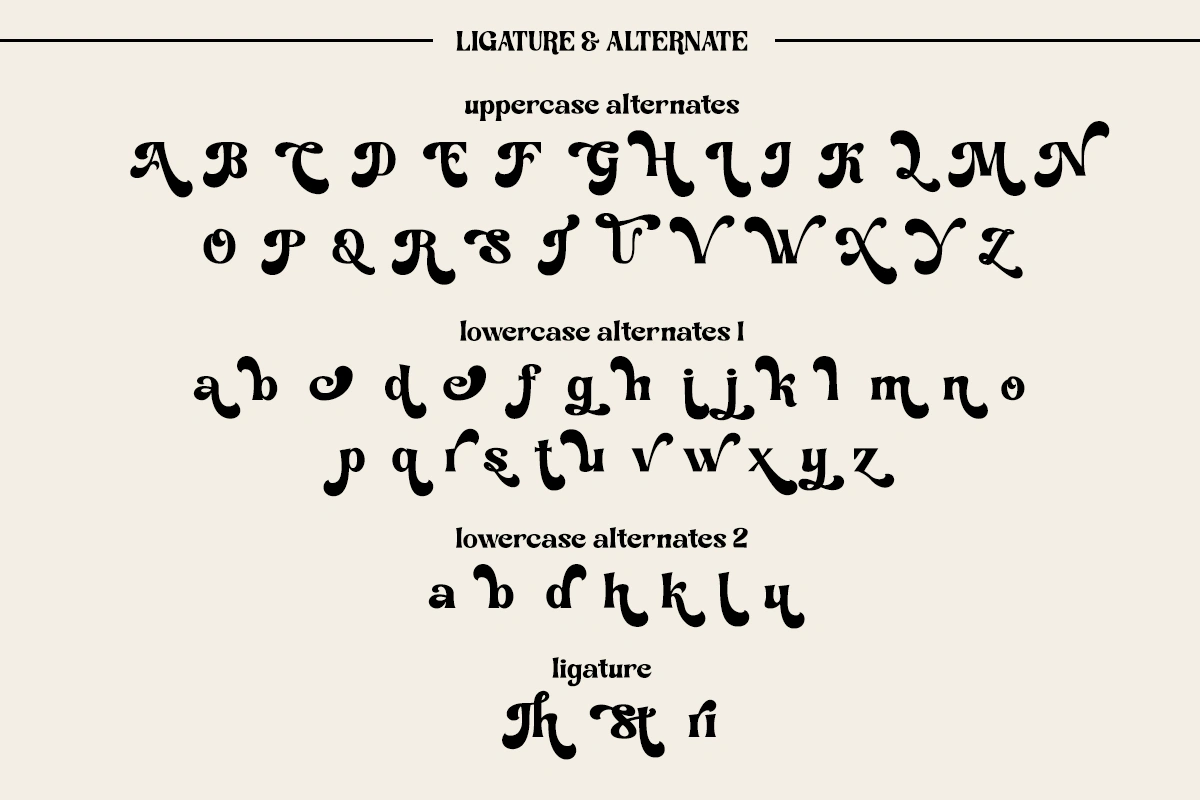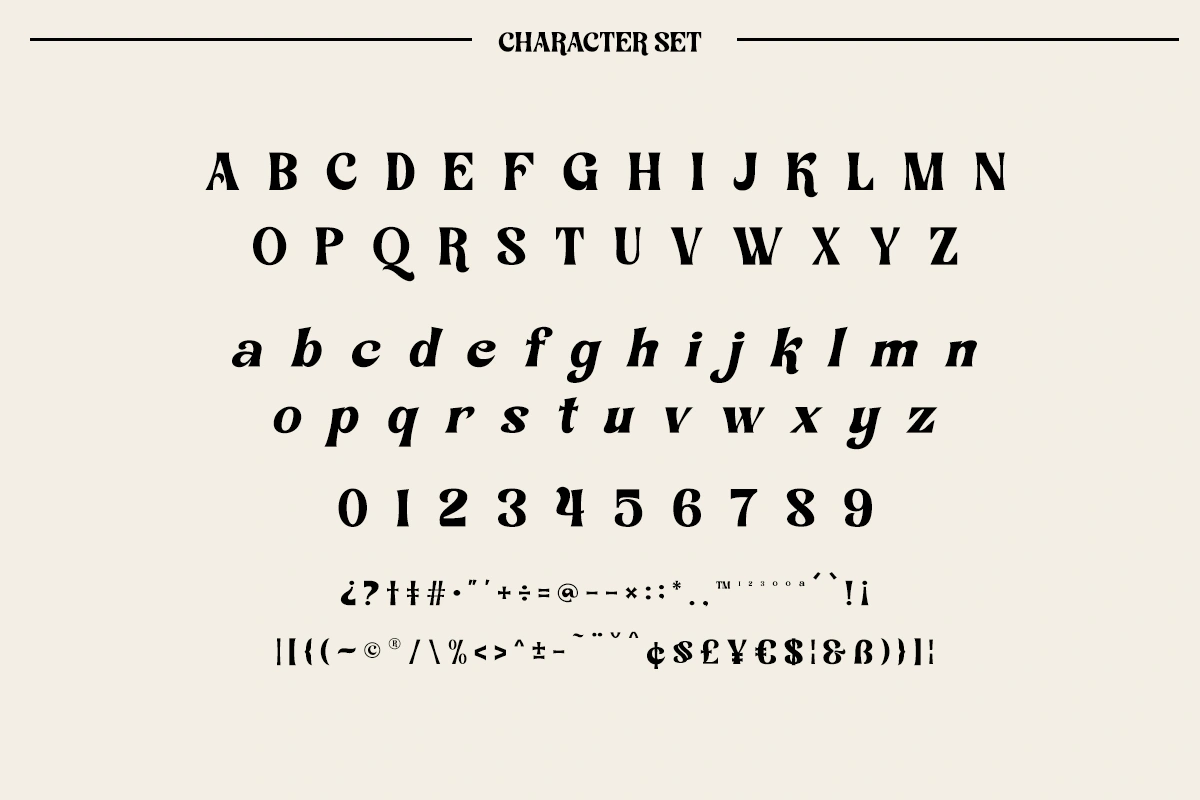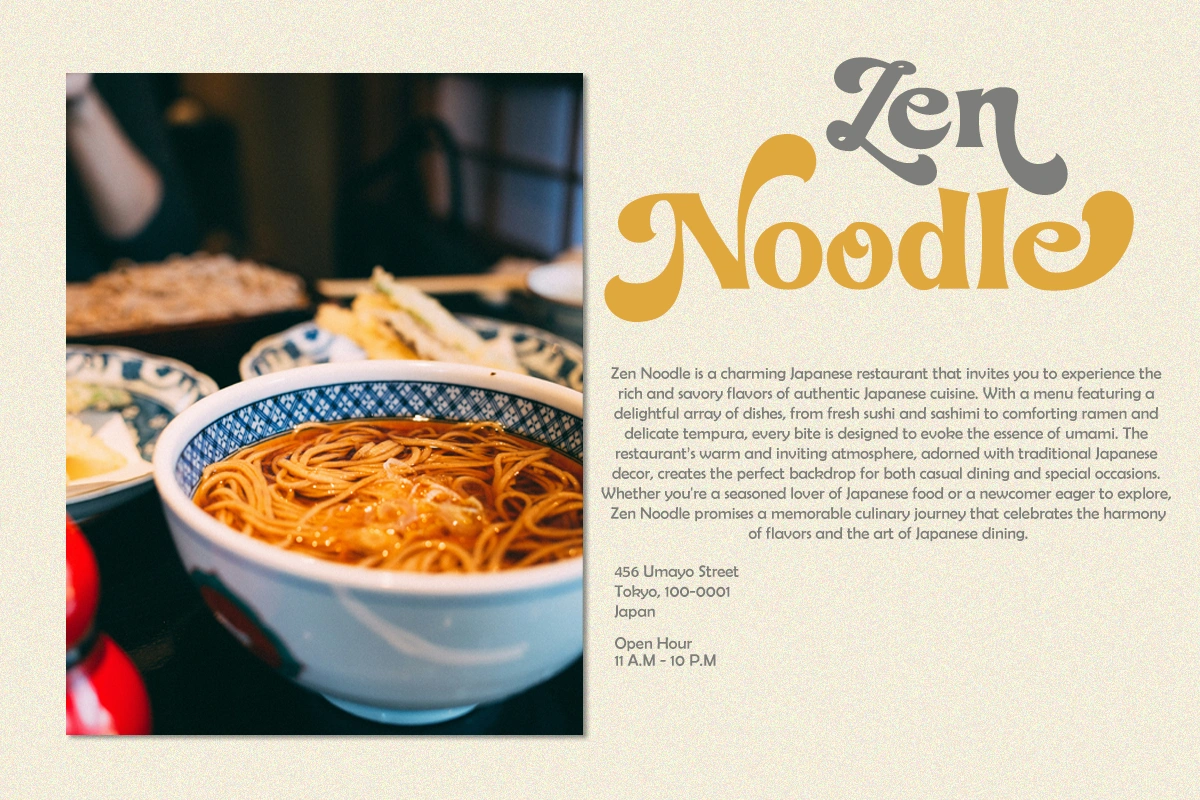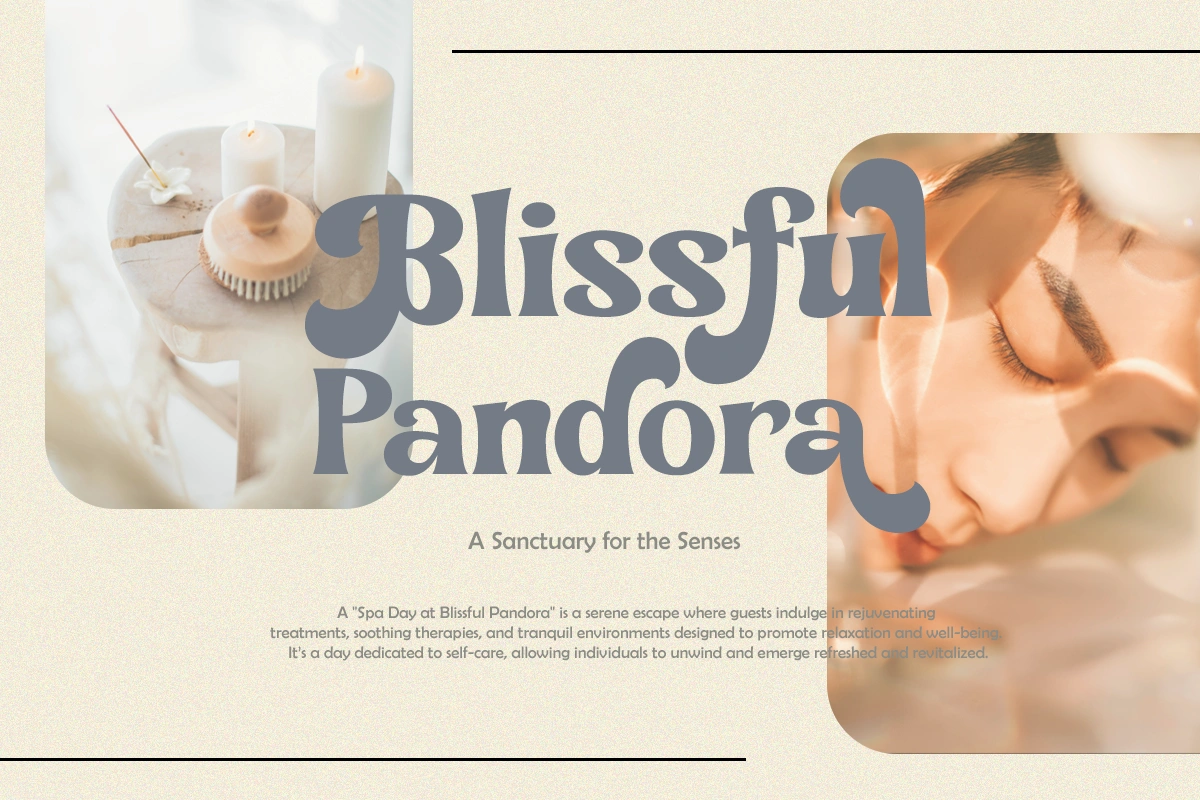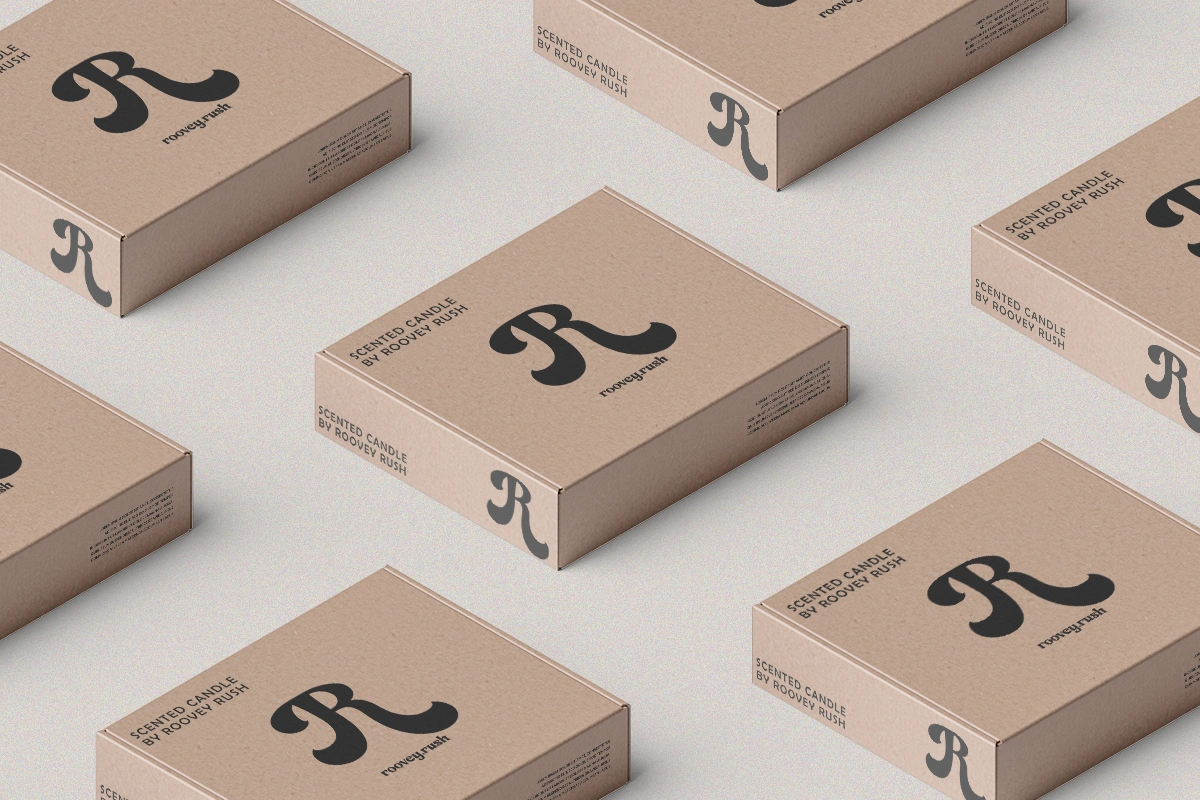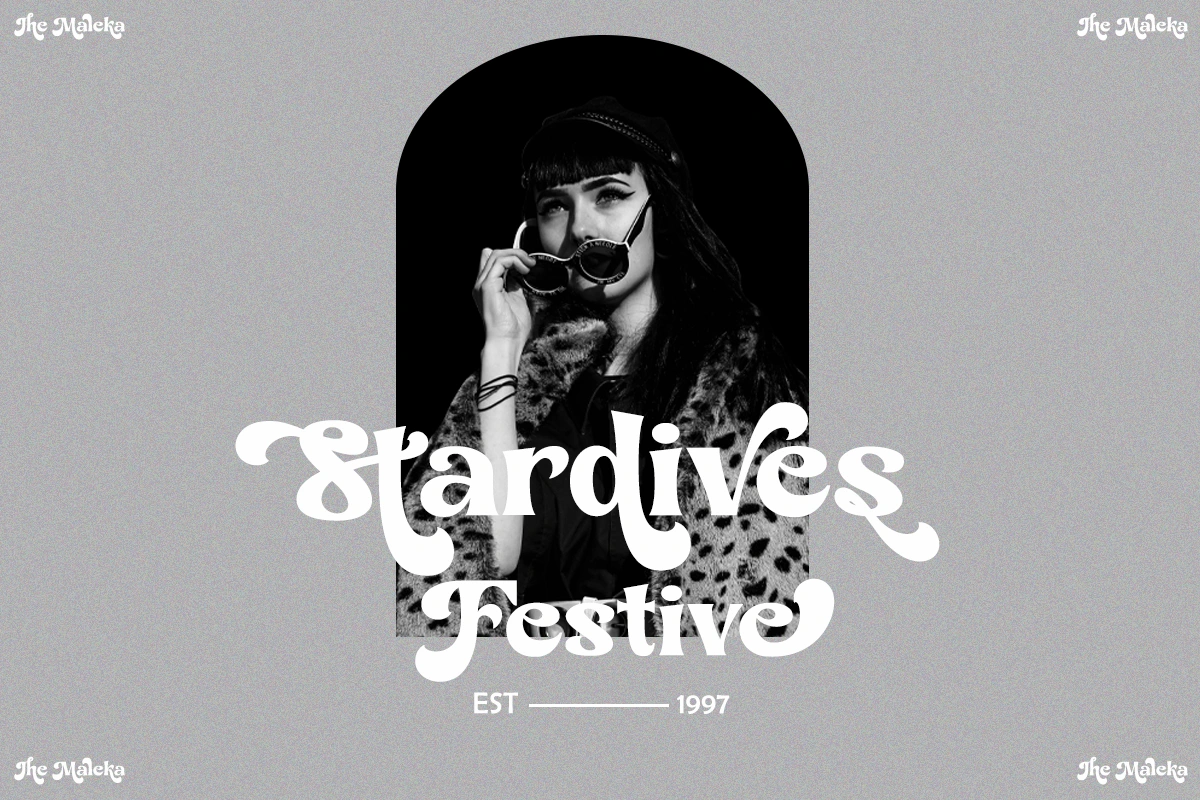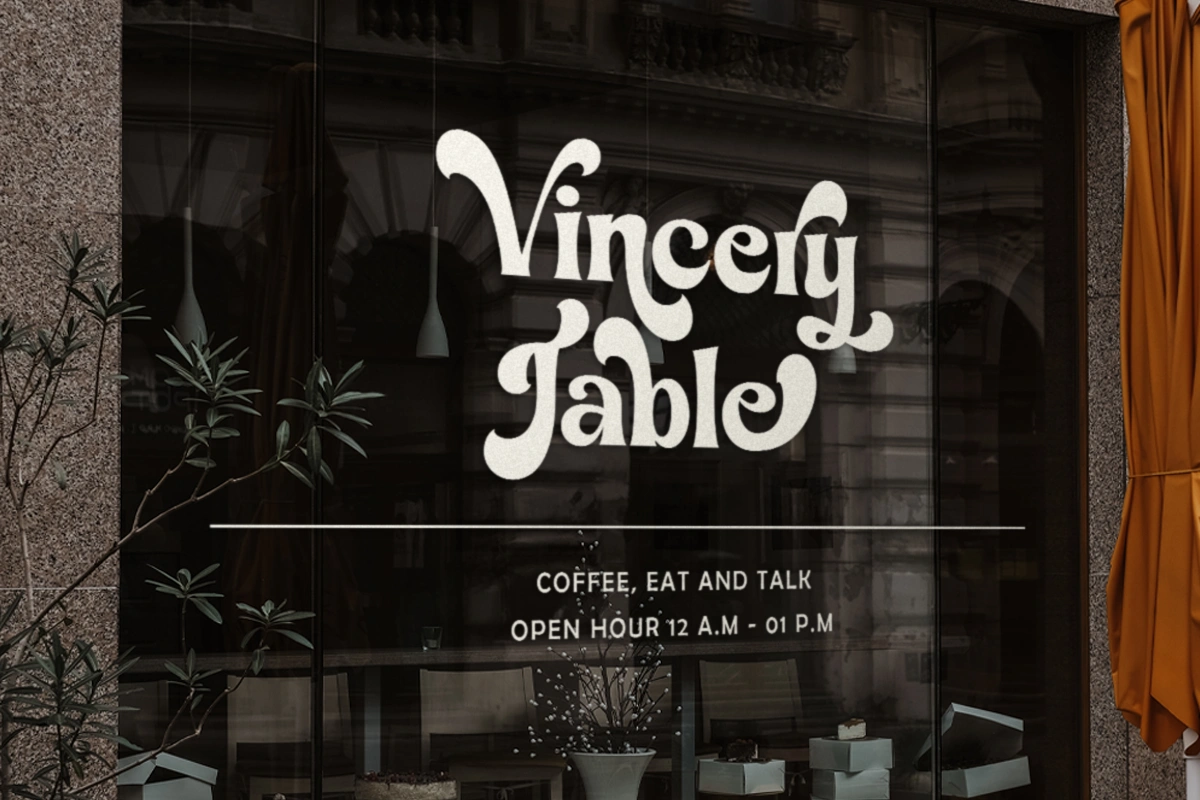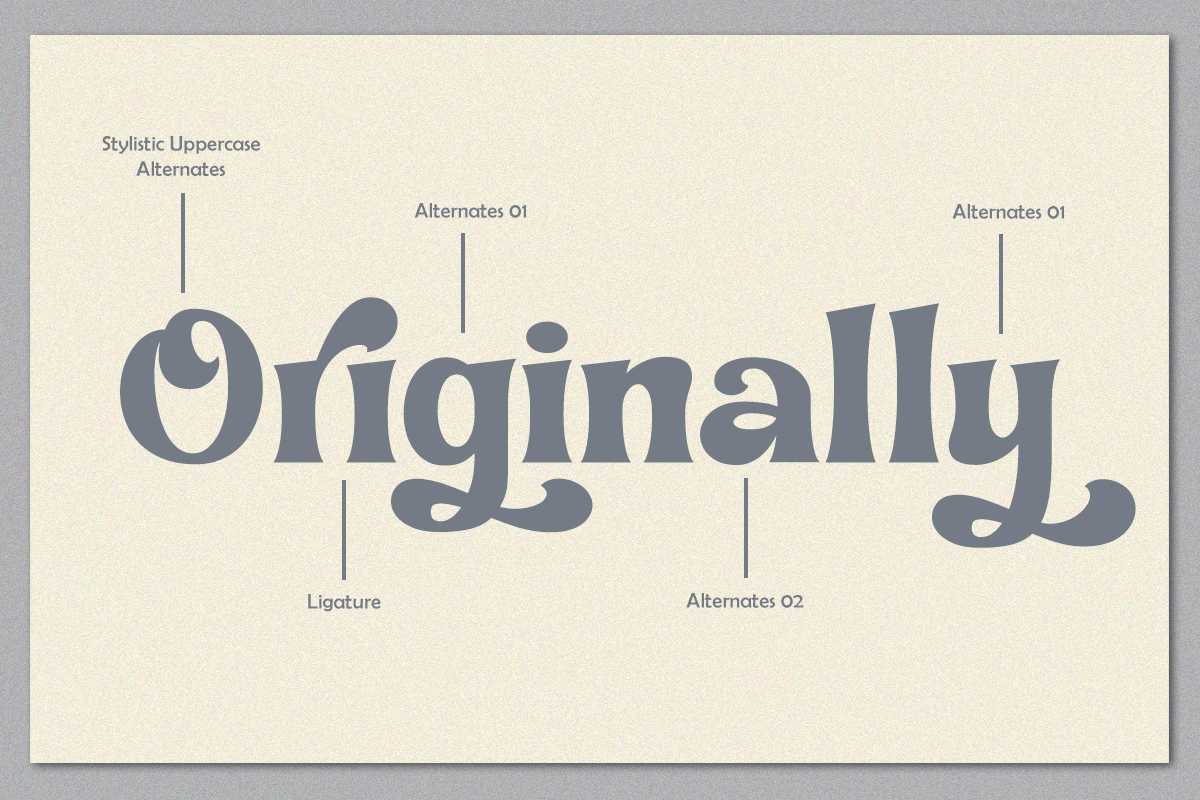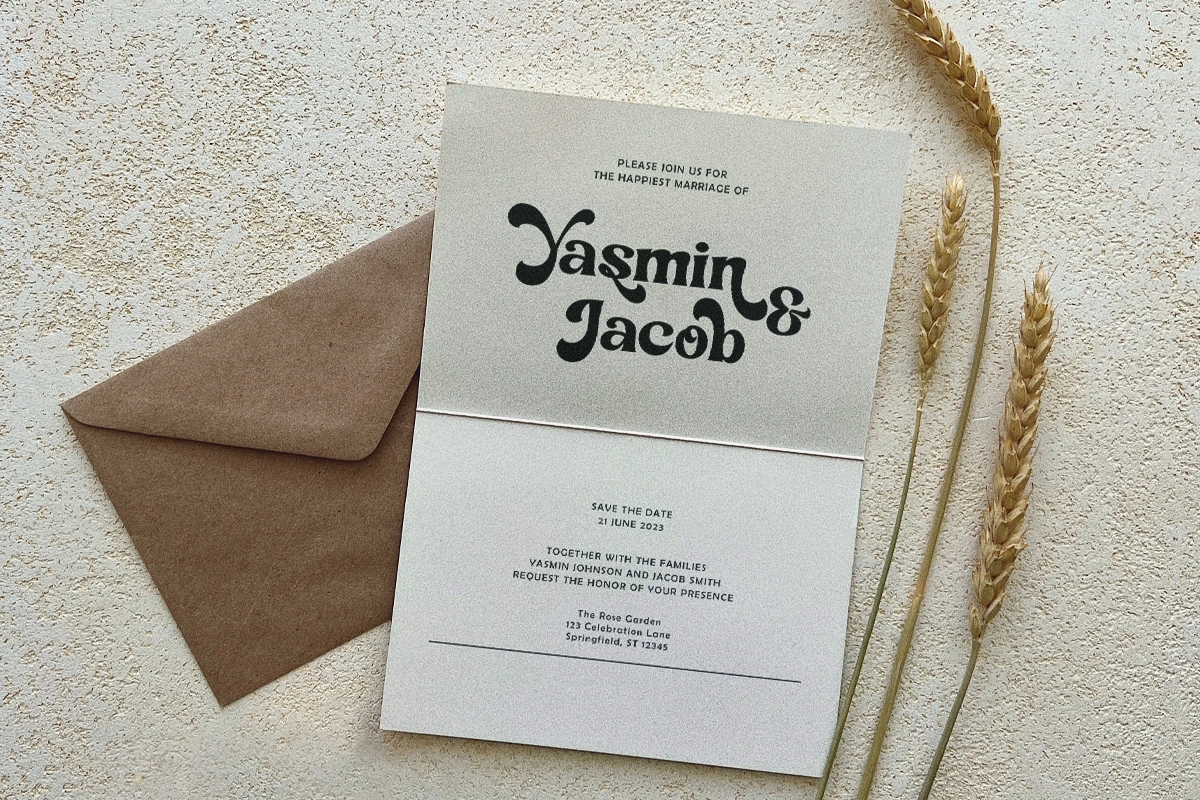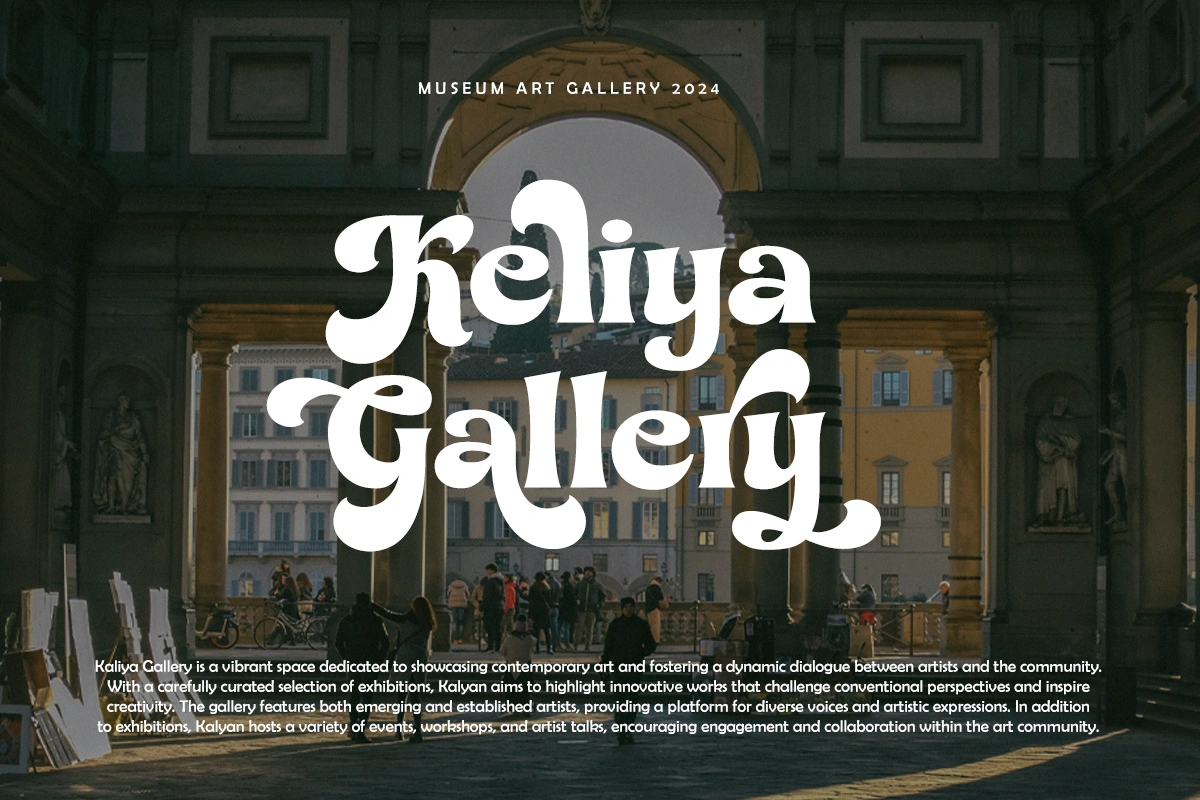
The Maleka – Serif Font
Introducing the new The Maleka! This bold and classy serif typeface beautifully balances modern and nostalgic aesthetics. Pre-matched and ready to enhance your next design, The Maleka adds a touch of elegance, style, and chic modernity, featuring a unique blend of contemporary and retro flair. It comes with a variety of alternatives and ligatures, enabling you to create stunning logos, quotes, blog posts, branding projects, magazine imagery, wedding invitations, and much more. Whether you’re looking to elevate your designs or make a statement, The Maleka is crafted just for you!
- Alternates
- Ligature